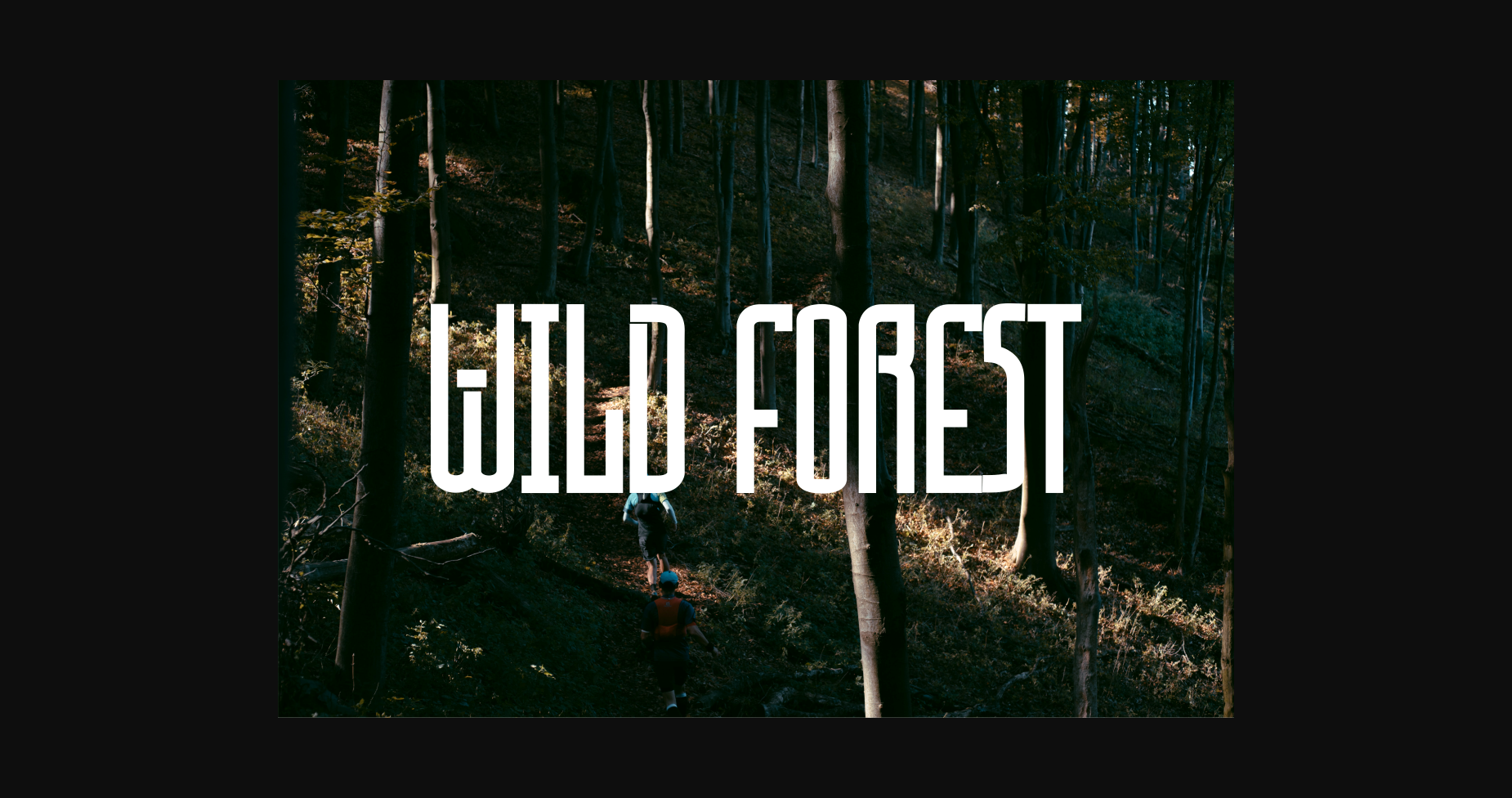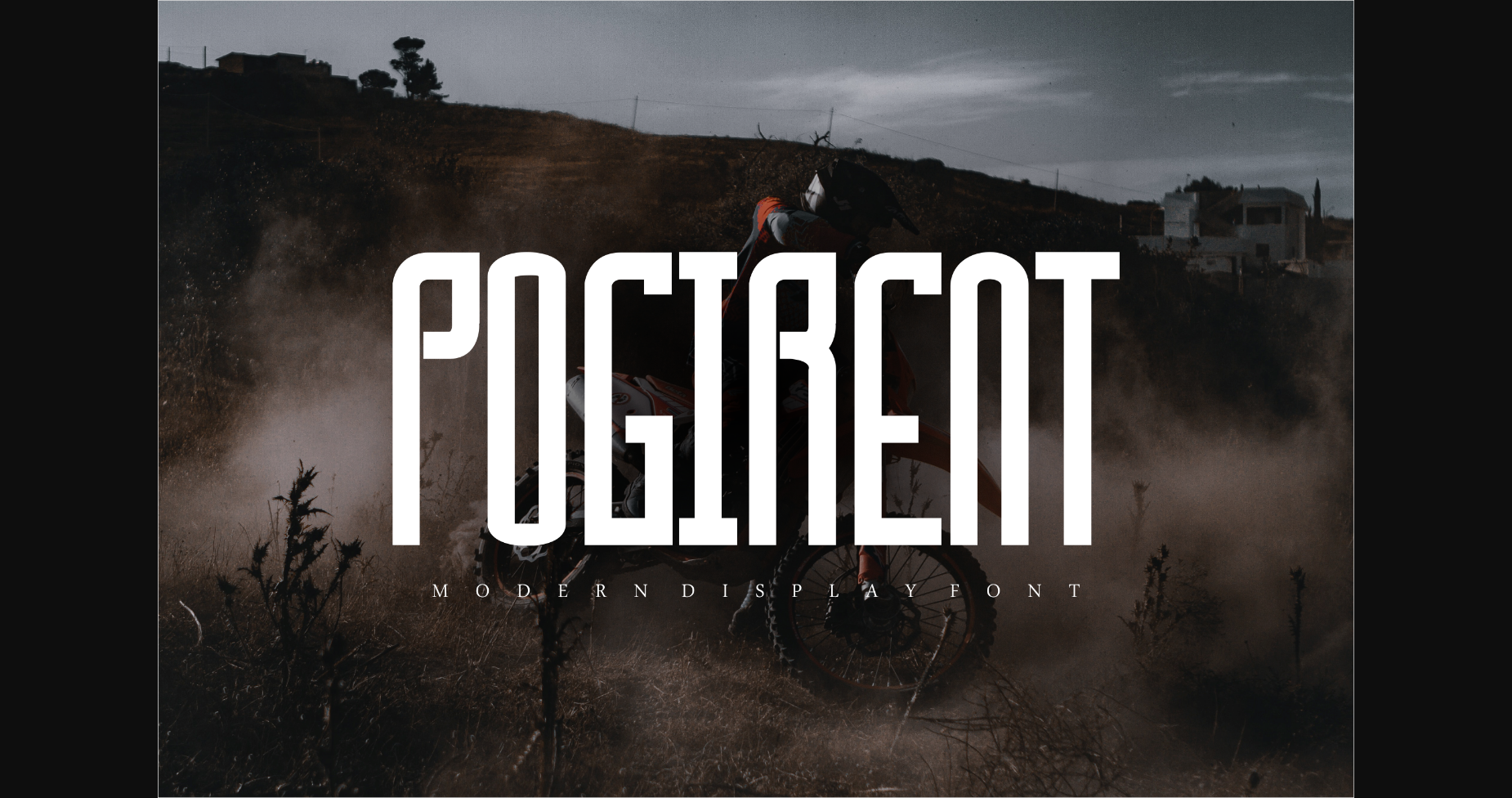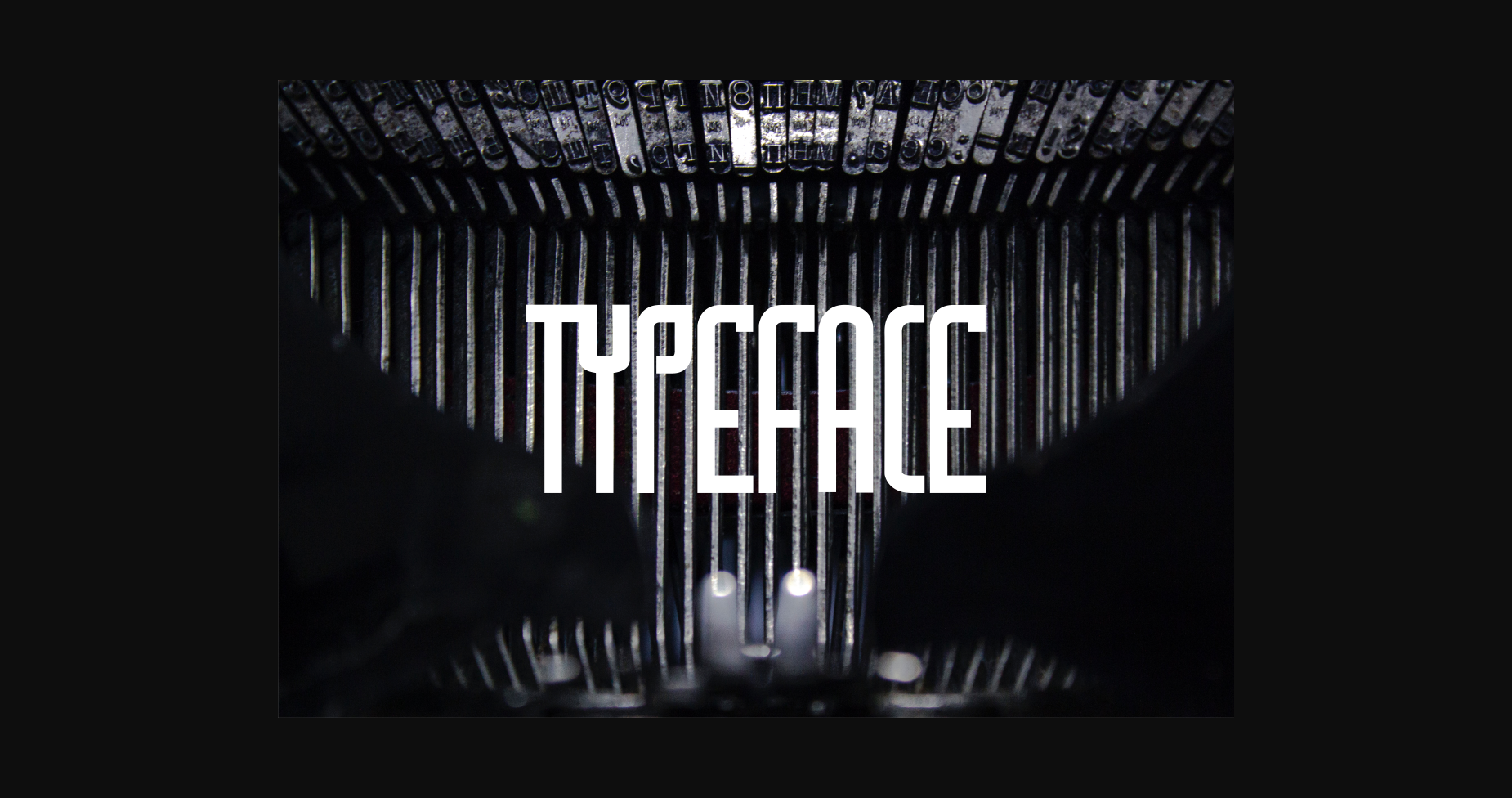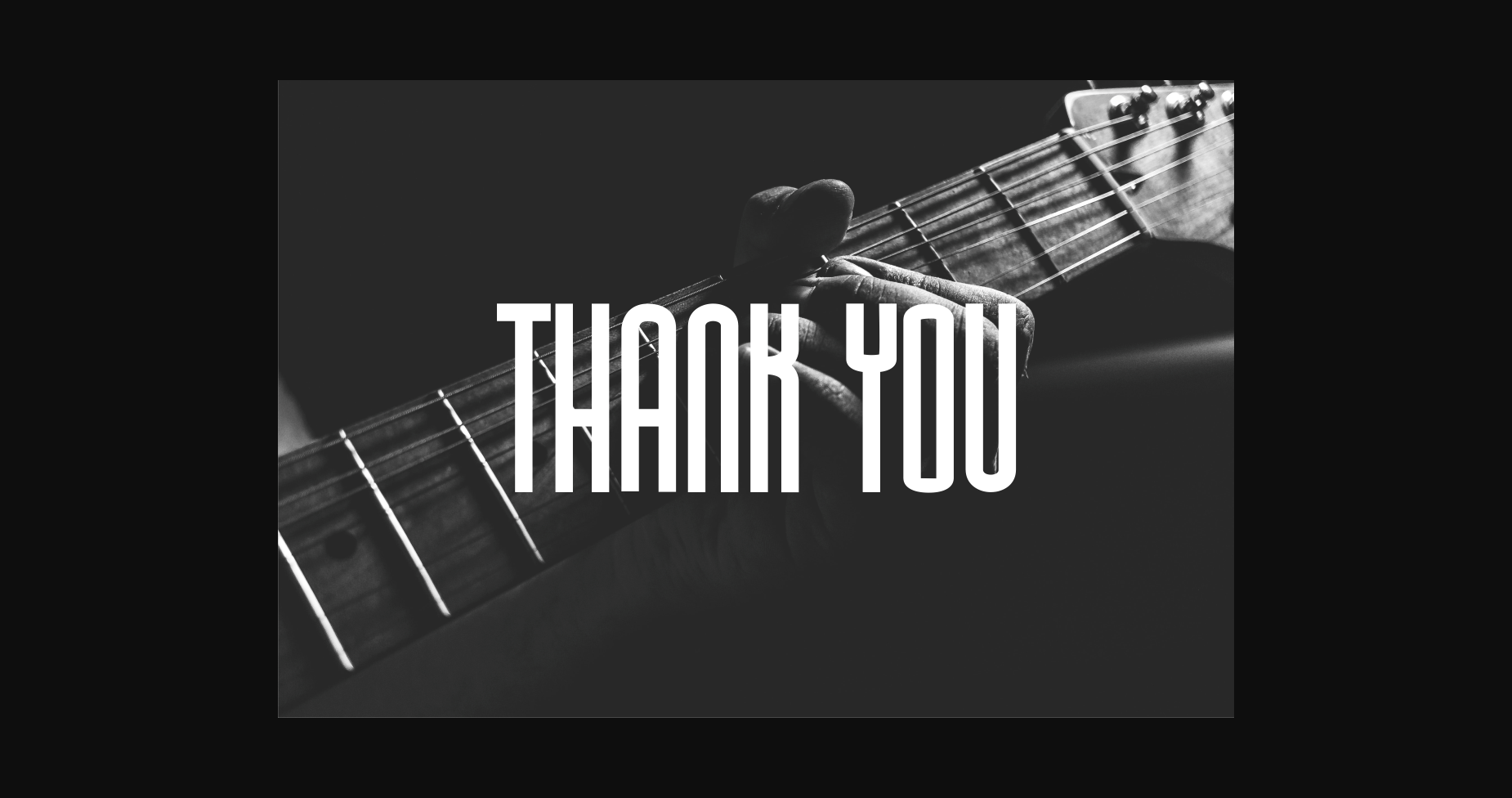
Pogirent Font
About Pogirent Font
Pogirent is a cool and modern sans serif font. Its natural and unique style makes it incredibly fitting to a large pool of designs. The only limit is your imagination!